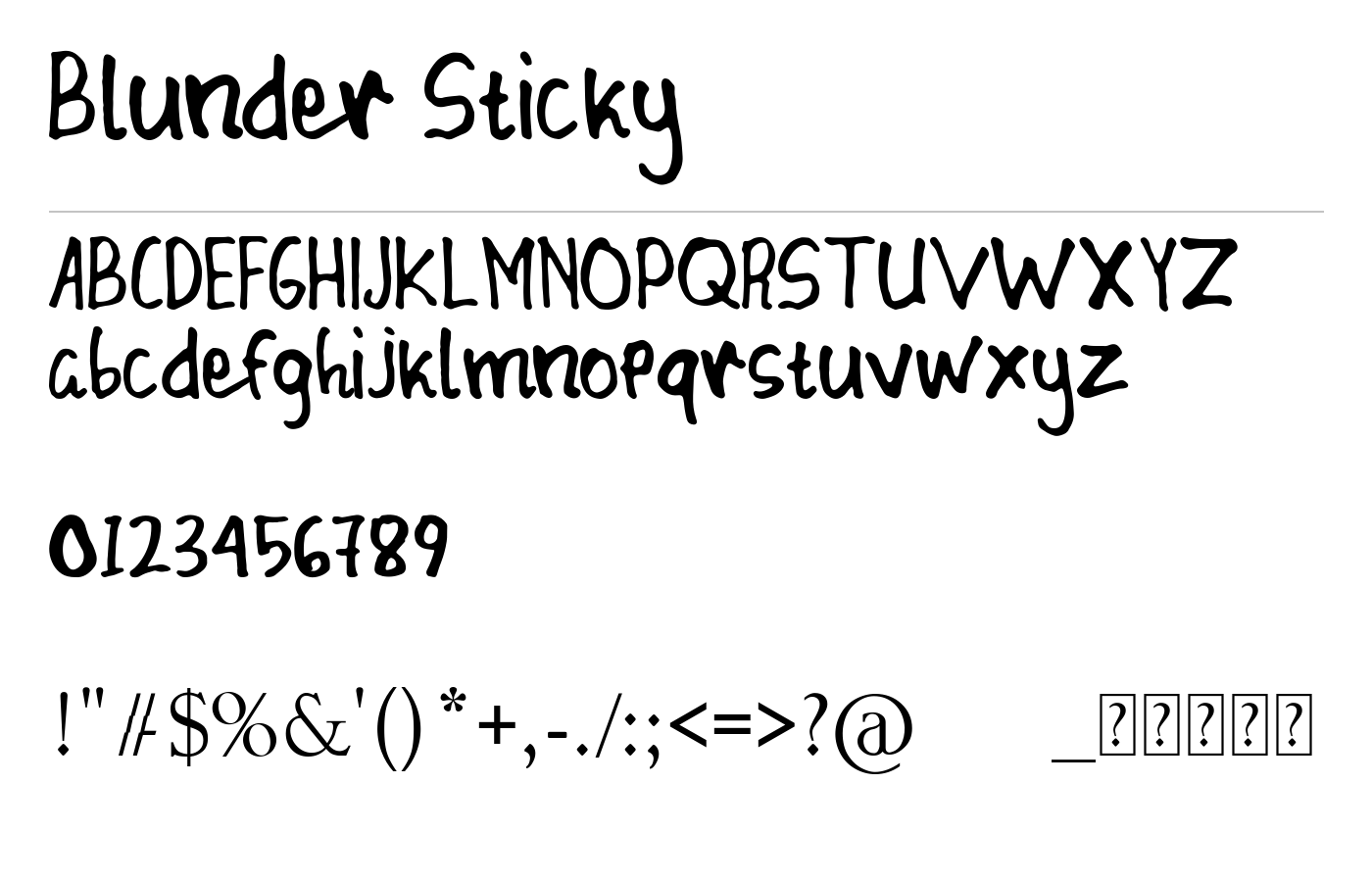
Blunder Sticky is a playful, handwritten sans serif font with an informal and casual feel. Its irregular, slightly bouncy letterforms and varied stroke thickness give it a friendly, approachable personality ideal for creative projects, children’s materials, and branding that aims for a fun and relaxed tone. This font works well in headlines, logos, and packaging where a unique, hand-drawn style is desired to add warmth and character.
Blunder Sticky Font
About Blunder Sticky Font